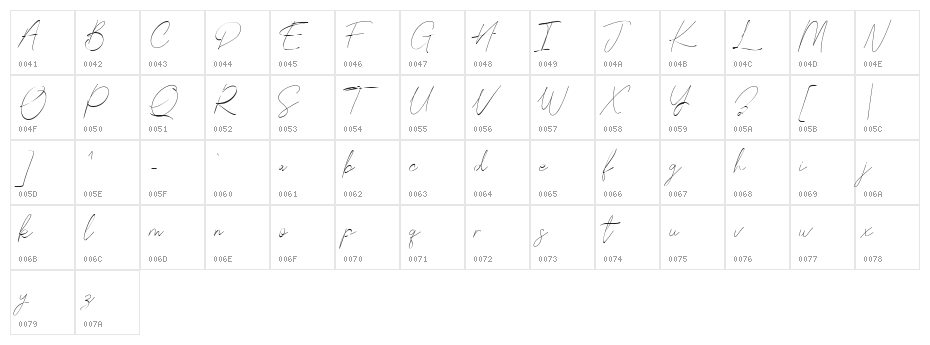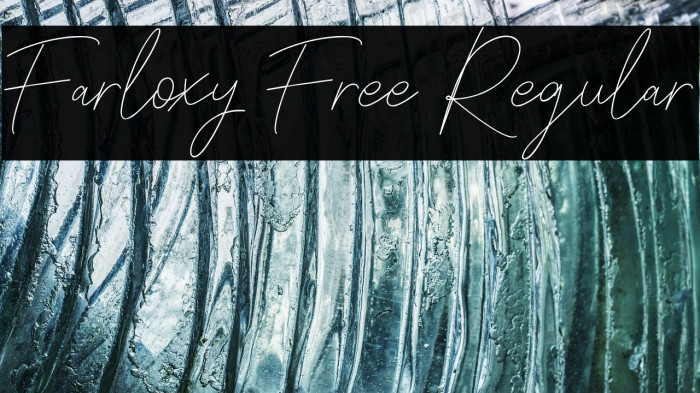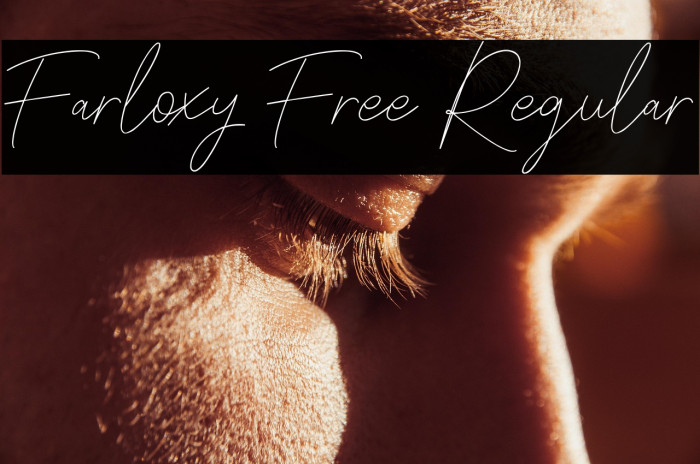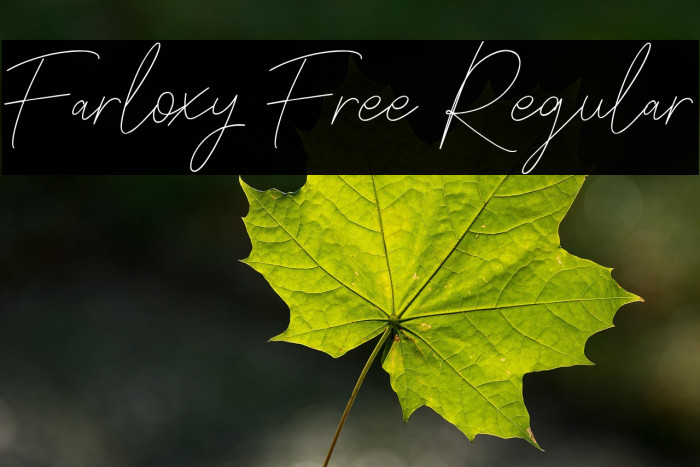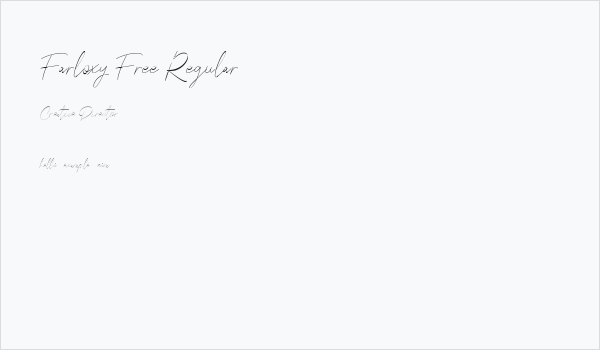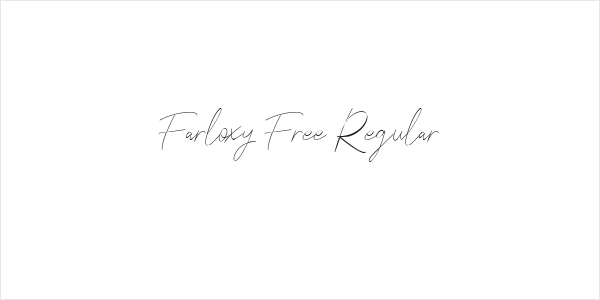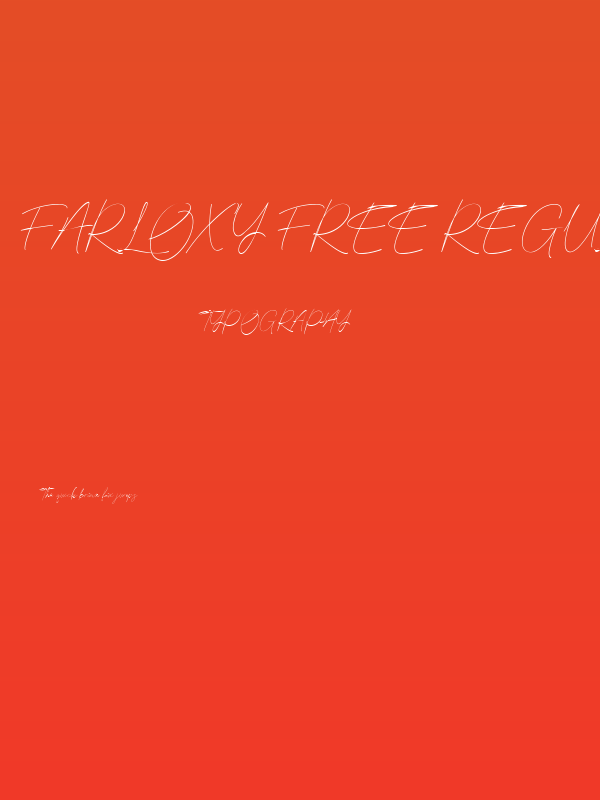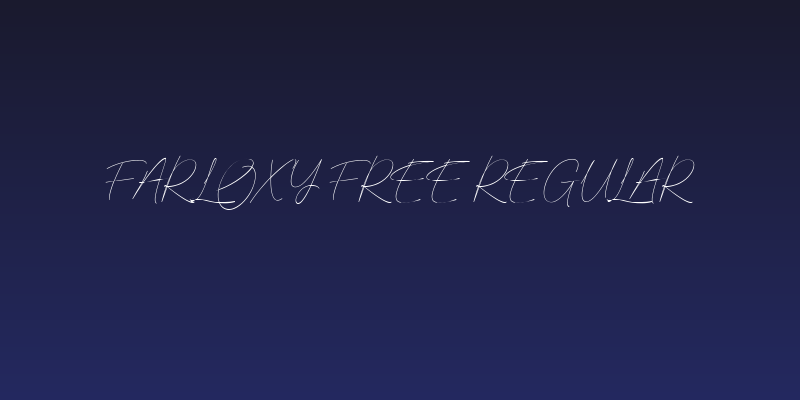
Farloxy Free Regular Font
Farloxy Free Regular Description
This font exhibits a delicate and flowing script style, characterized by its thin, elegant strokes and a sense of fluidity. The letters are connected in a cursive manner, giving it a handwritten appearance. The uppercase letters are slightly more elaborate, with extended flourishes that add a touch of sophistication. The lowercase letters maintain a consistent flow, enhancing readability while retaining an artistic flair. The numerals and special characters are designed to match the overall aesthetic, ensuring a cohesive look across all text elements. This font is perfect for projects that require a personal, elegant touch.
| Overall Style | Elegant, Handwritten |
| Proposed Projects | Ideal for wedding invitations, greeting cards, personal branding, and elegant stationery. |